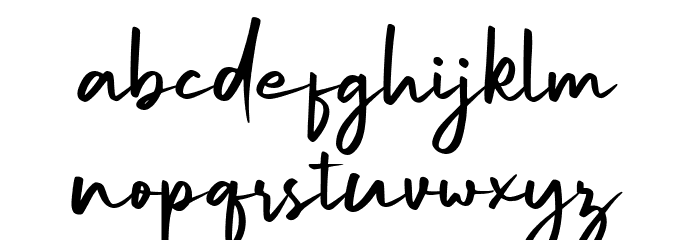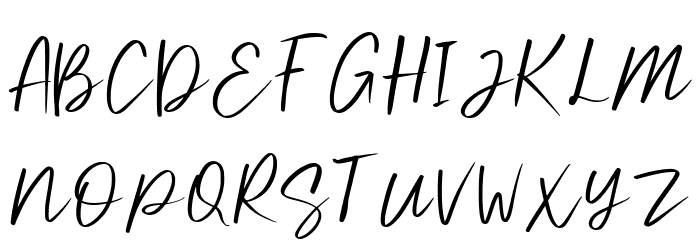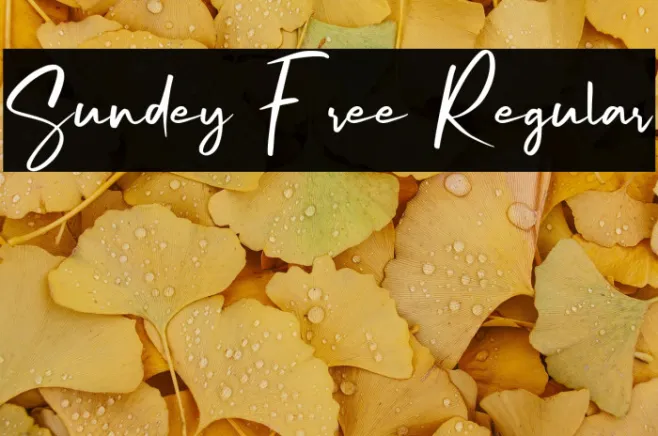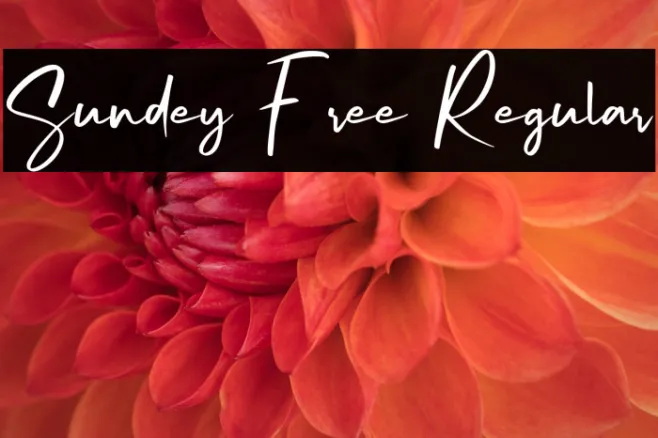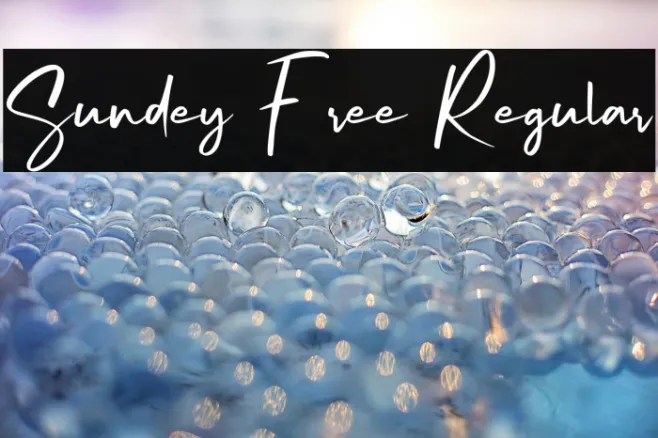
Sundey Free Regular Font
This font features a lively and expressive handwritten style, characterized by its fluid and dynamic strokes. The uppercase letters are tall and slightly slanted, giving a sense of movement and energy. The lowercase letters are more compact, with playful loops and curves that add a whimsical touch. The overall appearance is casual yet stylish, making it suitable for projects that require a personal and approachable feel. The font maintains a consistent stroke width, ensuring readability while preserving its artistic flair.
A lively handwritten font with fluid strokes and a playful, stylish appearance.
- Font: Sundey Free Regular
- Proposed Projects: Ideal for greeting cards, invitations, personal branding, and social media graphics.
- Category: Handwritten
- Overall Style: Casual
- Use Case: Logos, Headlines, Invitations